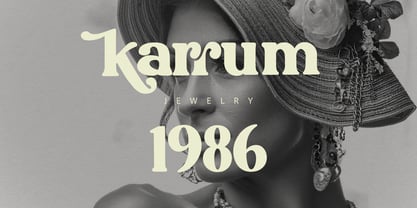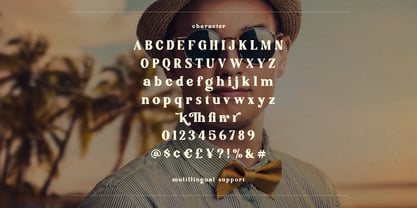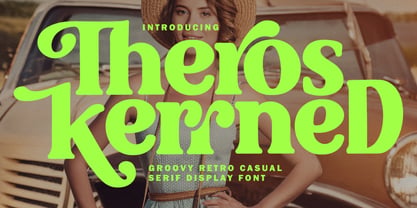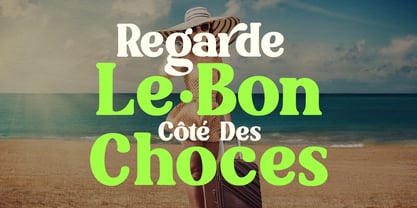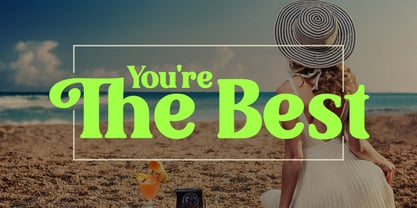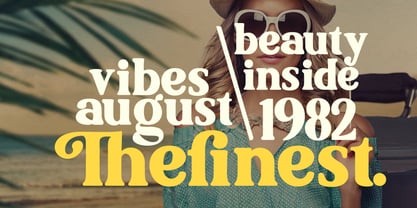
MC Theros Kerrned
The MC Theros Kerrned Font Family was designed by Gilang Maulana and published by Maulana Creative. MC Theros Kerrned contains 1 styles. More about this family
Embrace the nostalgic charm of the 70s and 80s with Theros Kerrned, a bold display serif that perfectly blends groovy aesthetics with a casual, modern twist. This font features unique swashes, elegant ligatures, and a playful personality that makes it ideal for high-impact branding, vintage-style, and editorial layouts. Whether you're designing for a beach-bound travel or a retro jewelry line, Theros Kerrned provides a sophisticated yet laid-back vibe that captures the "finest vibes" of the golden era.